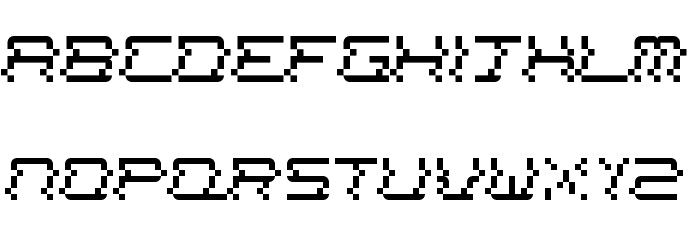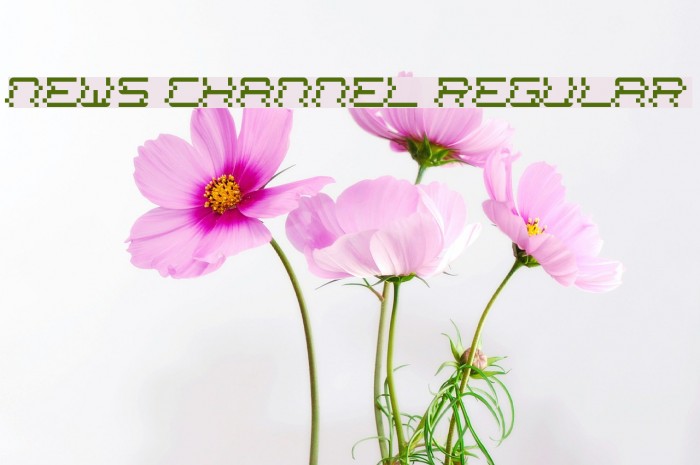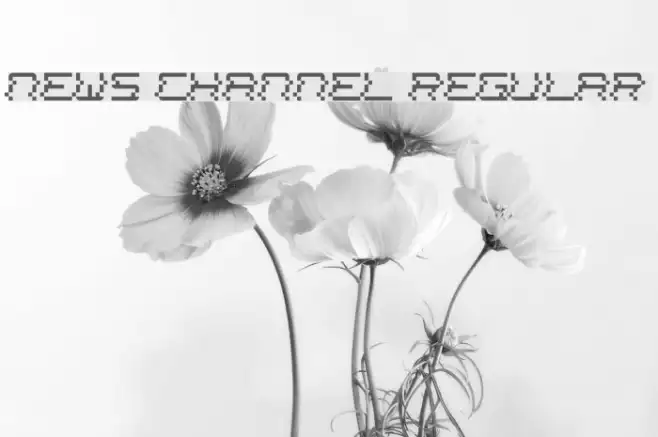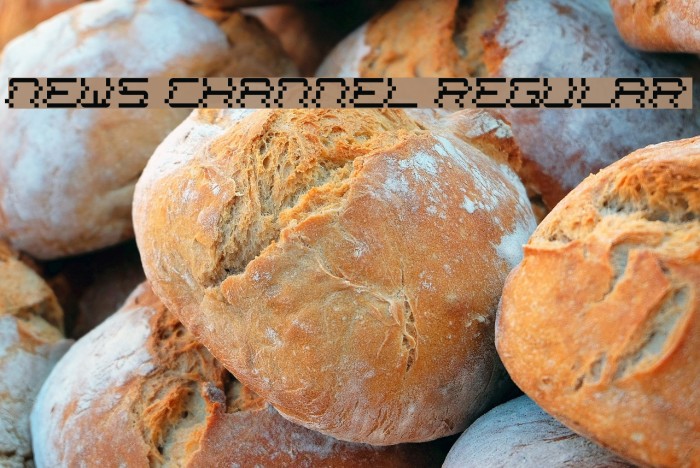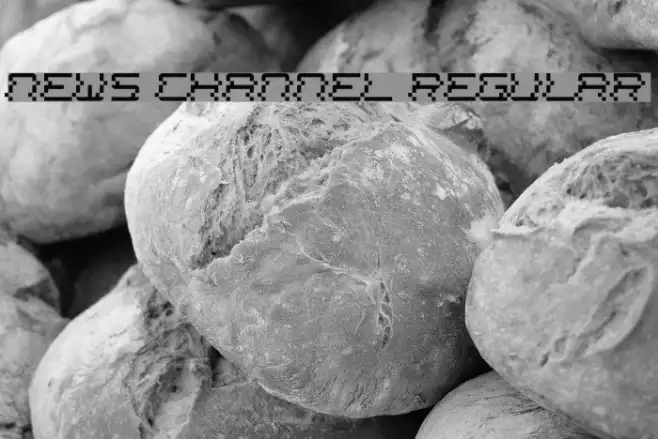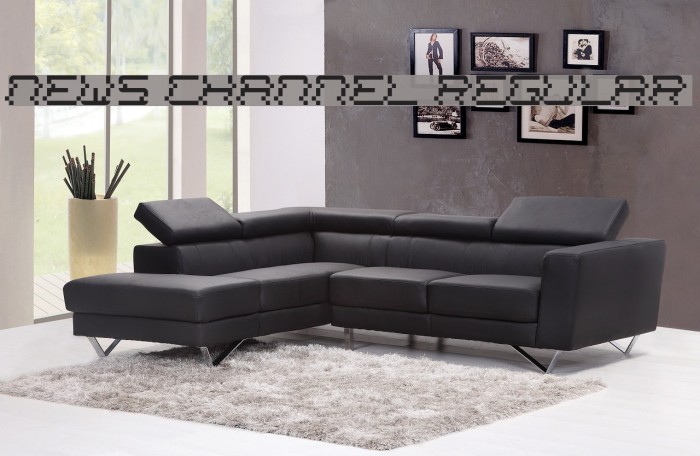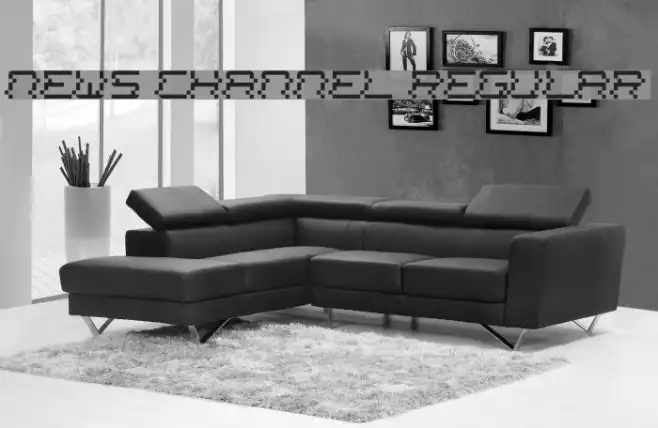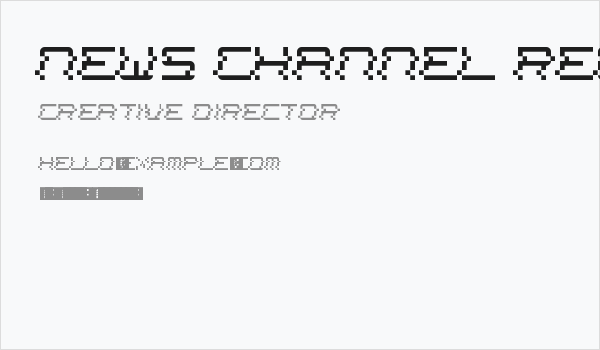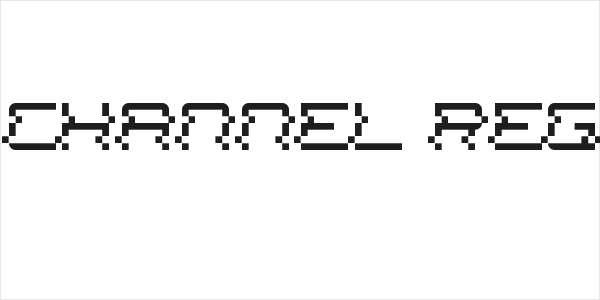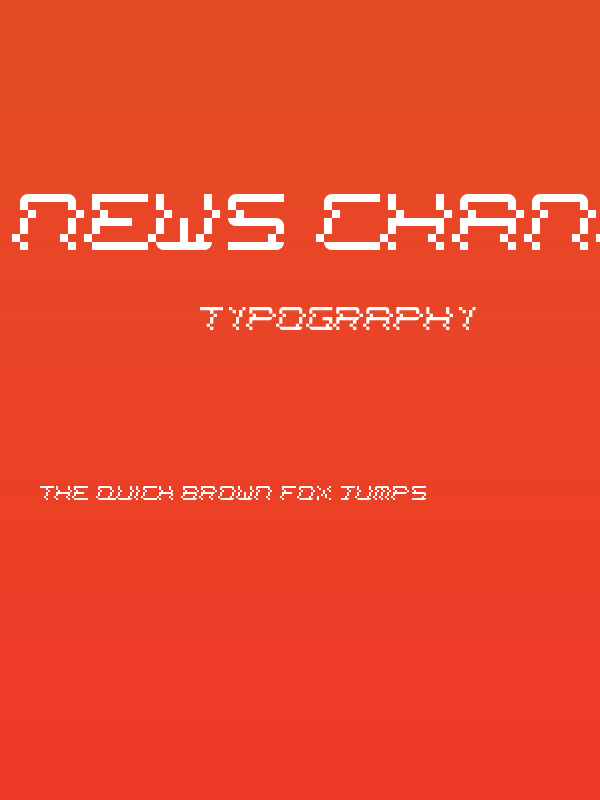
News Channel Regular Font
News Channel Regular Description
This font features a distinct pixelated design reminiscent of early digital displays and retro gaming aesthetics. Each character is constructed with a grid-like pattern, giving it a blocky and geometric appearance. The uppercase letters maintain a consistent height and width, creating a uniform look across the alphabet. The lowercase letters follow the same pixelated style, ensuring cohesion throughout the typeface. Numbers and special characters are also designed with the same attention to pixel detail, making them easily recognizable and consistent with the overall theme. This font's unique style is perfect for projects that aim to evoke nostalgia or a digital, tech-inspired feel.
| Use Case | Logos, Headlines, Digital Art |
| Proposed Projects | Ideal for retro video game graphics, tech-themed posters, digital art projects, and any design requiring a vintage digital look. |